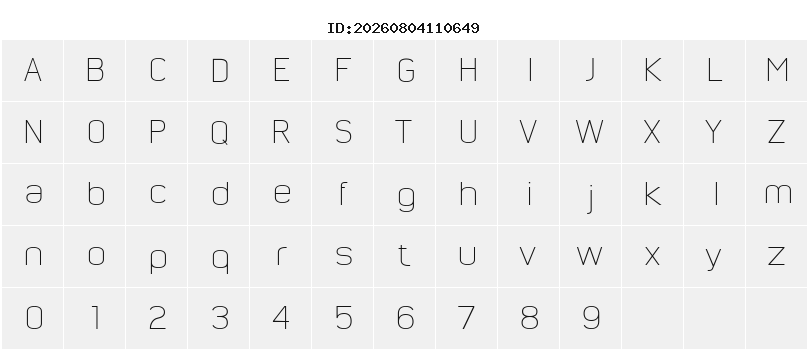
Nordstern Demo Light Preview
• Designer: Rolf Benjamin Fleischmann
• Manufacturer: Büro Sequenz
About Nordstern Demo Light.ttf
Nordstern Demo Light.ttf is a modern, elegant sans-serif font designed for ultimate readability and visual harmony. Perfect for branding, headlines, web design, and print materials.